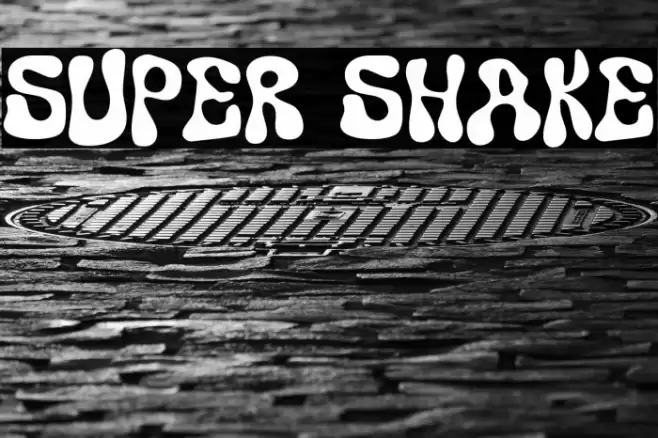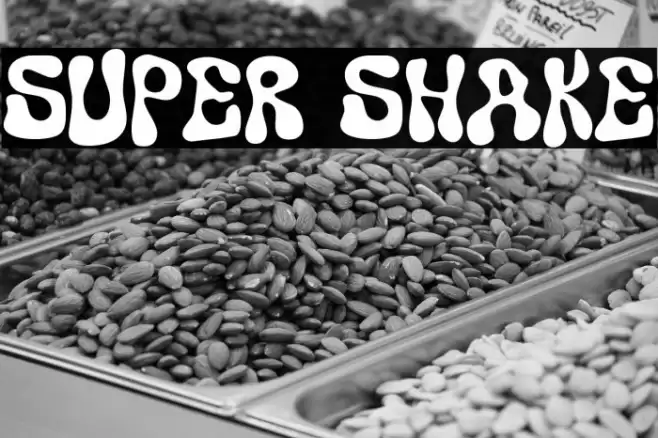
Super Shake Font
Super Shake Description
This font features a bold and playful design with a bubbly, organic appearance. Each character is crafted with thick, rounded strokes that give it a lively and dynamic feel. The letters are slightly irregular, adding to the whimsical and informal aesthetic. This style is reminiscent of retro or psychedelic designs, making it stand out with its unique and eye-catching look. The font maintains a consistent weight throughout, ensuring readability while still offering a distinctive personality. Its boldness and rounded forms make it suitable for creative and fun applications.
A bold, playful font with a bubbly, organic design and retro vibes from Uncategorized fonts.
- Font: Super Shake
- Proposed Projects: Ideal for posters, children's books, party invitations, and branding for playful or retro-themed products.
- Overall Style: Retro, Playful